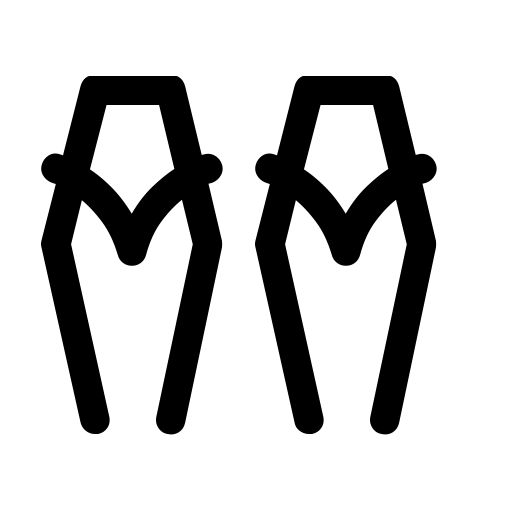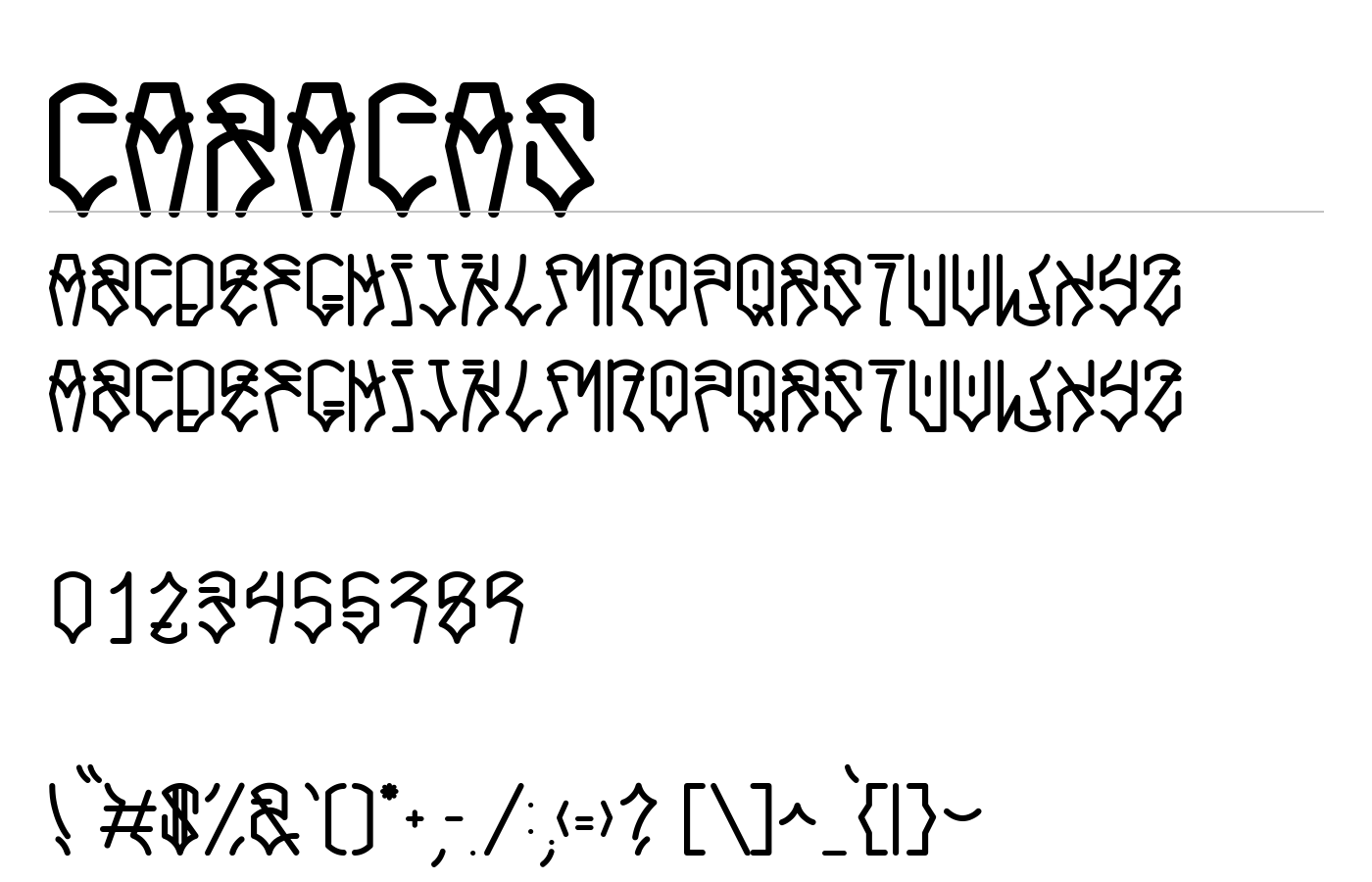
Caracas Font is a unique, decorative display typeface with a futuristic, geometric style and intricate angular details. Its narrow, tall letterforms with consistent stroke weight and sharp corners create a striking, modern look ideal for logos, posters, and branding that needs a distinctive, edgy personality. This font works best in creative, tech, or sci-fi contexts where impactful, attention-grabbing typography is key.
Caracas Font
About Caracas Font
| Font family | Caracas Font |
| Designer | O'Connor |